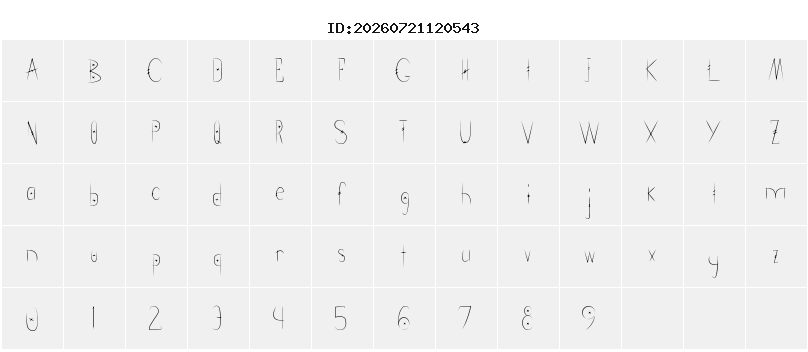
• Font Name: FishBones
• Full Font Name: FishBones
• Character Count: 64
FishBones.ttf is a modern, elegant sans-serif font designed for ultimate readability and visual harmony. Perfect for branding, headlines, web design, and print materials.